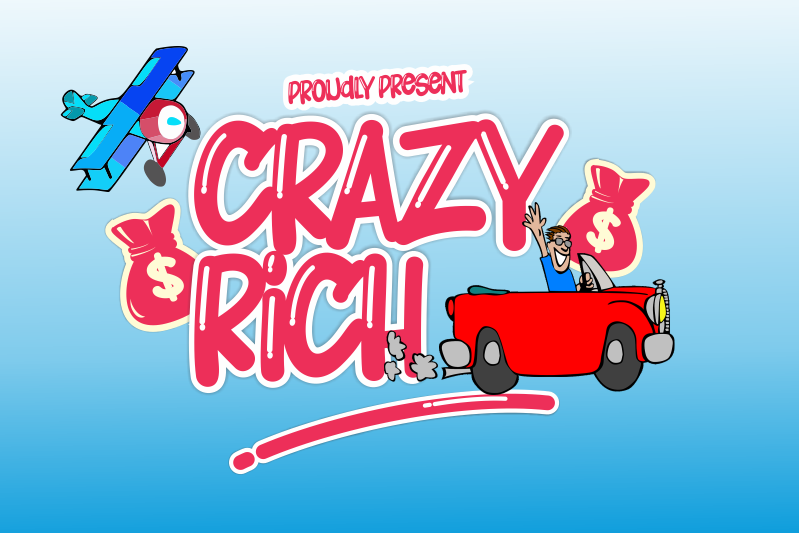
Preview and download Crazy Rich Font. Created by Daddi Daryawan in Fancy Cartoon styles with Free for personal use license.
Crazy Rich is a fun and joyful display font. Incredibly neat and trendy, this font will elevate each of your designs. Note of the author ENGLISH: Be very careful and take the time to read any and all documentation before deciding to use a font commercially. Ignorance is not an excuse for breaking the law. By installing or using this font, you are hereby agree to this Product Usage Agreement: 1. This font is ONLY FOR PERSONAL USE 2. NO COMMERCIAL USE ALLOWED 3. You are REQUIRES A LICENSE for PROMOTIONAL or COMMERCIAL USE 4. CONTACT ME before any Promotional or Commercial Use COMMERCIAL USE : https://www.creativefabrica.com/product/crazy-rich-2/ref/181749/ EMAIL SUPPORT: creativework69@yahoo.com ------------------------------------------------ INDONESIA: Berhati-hatilah dan luangkan waktu untuk membaca Syarat & Ketentuan dibawah, sebelum memutuskan untuk menggunakan font secara komersial. Ketidaktahuan bukanlah alasan untuk suatu pelanggaran hukum. Dengan meng-install font ini, anda dianggap mengerti dan menyetujui semua syarat dan ketentuan penggunaan font dibawah ini: 1. Font ini hanya dapat digunakan untuk keperluan "Personal Use", atau untuk keperluan More... |